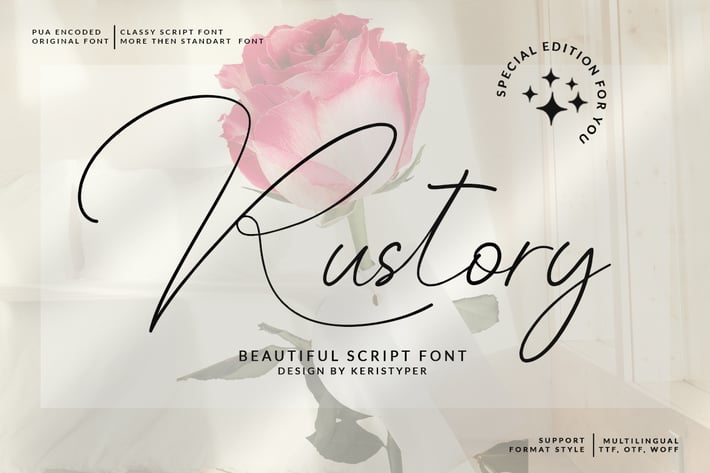
Rustory Font
kerismaker
Intoducing, Rustory signature font. This enchanting font will turn any creative idea into a true standout. This type of font is perfectly made to be applied especially in logo, and the other various formal forms such as invitations, labels, logos, magazines, books, greeting/wedding cards, packaging, fashion, makeup, stationery, novels, labels, or any type of advertising purpose.